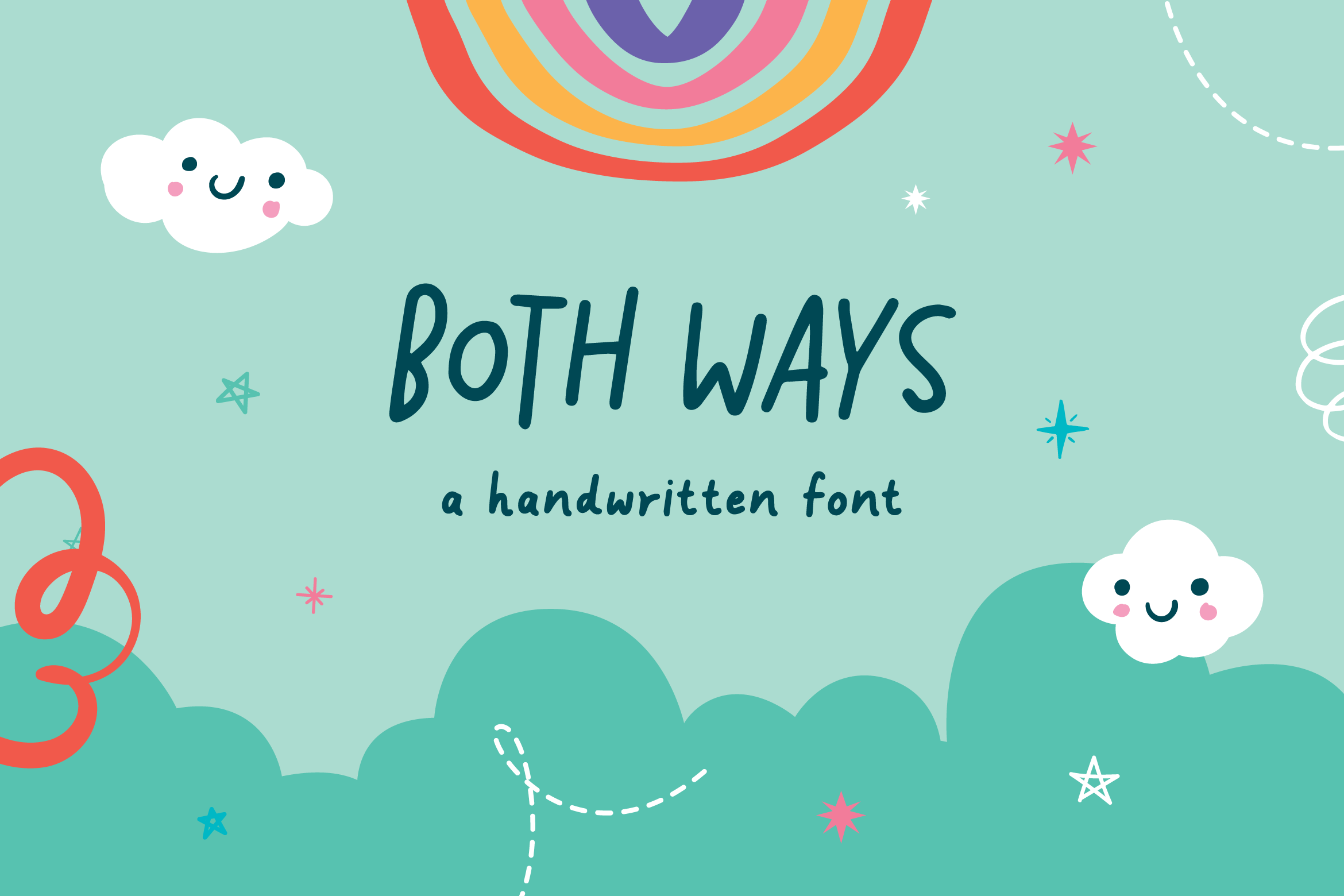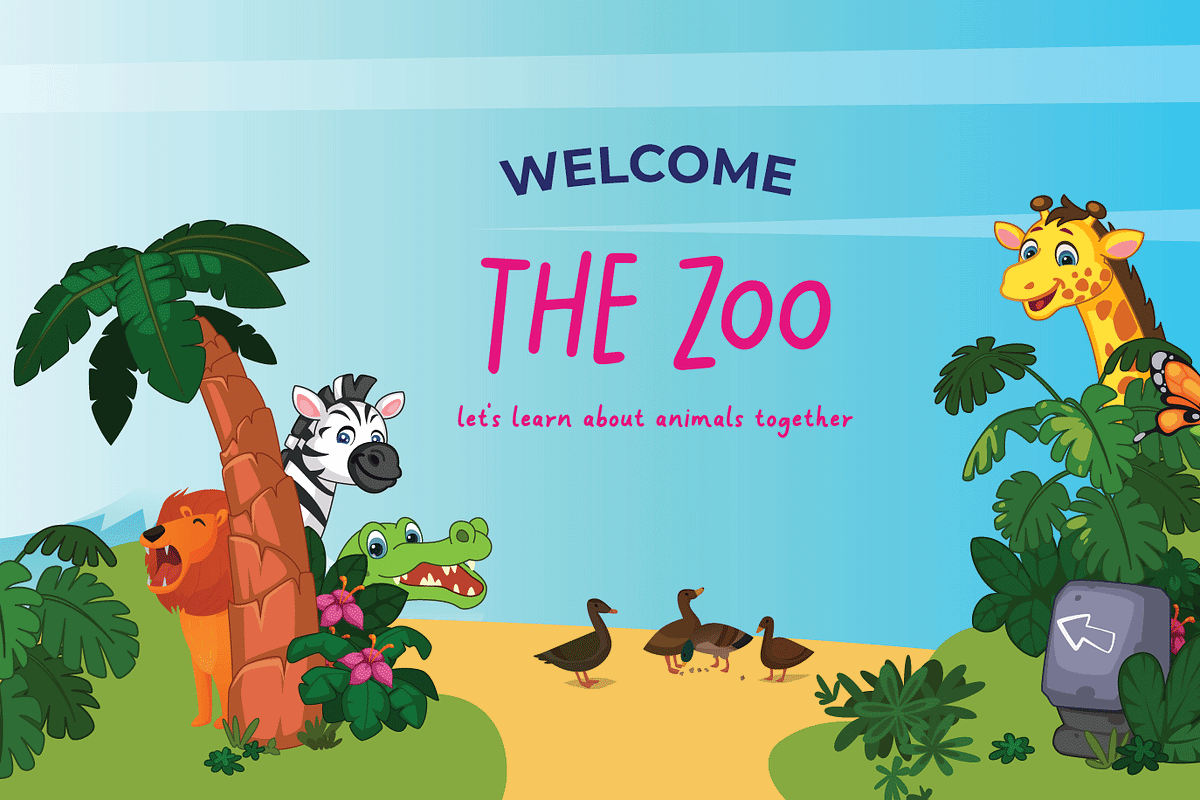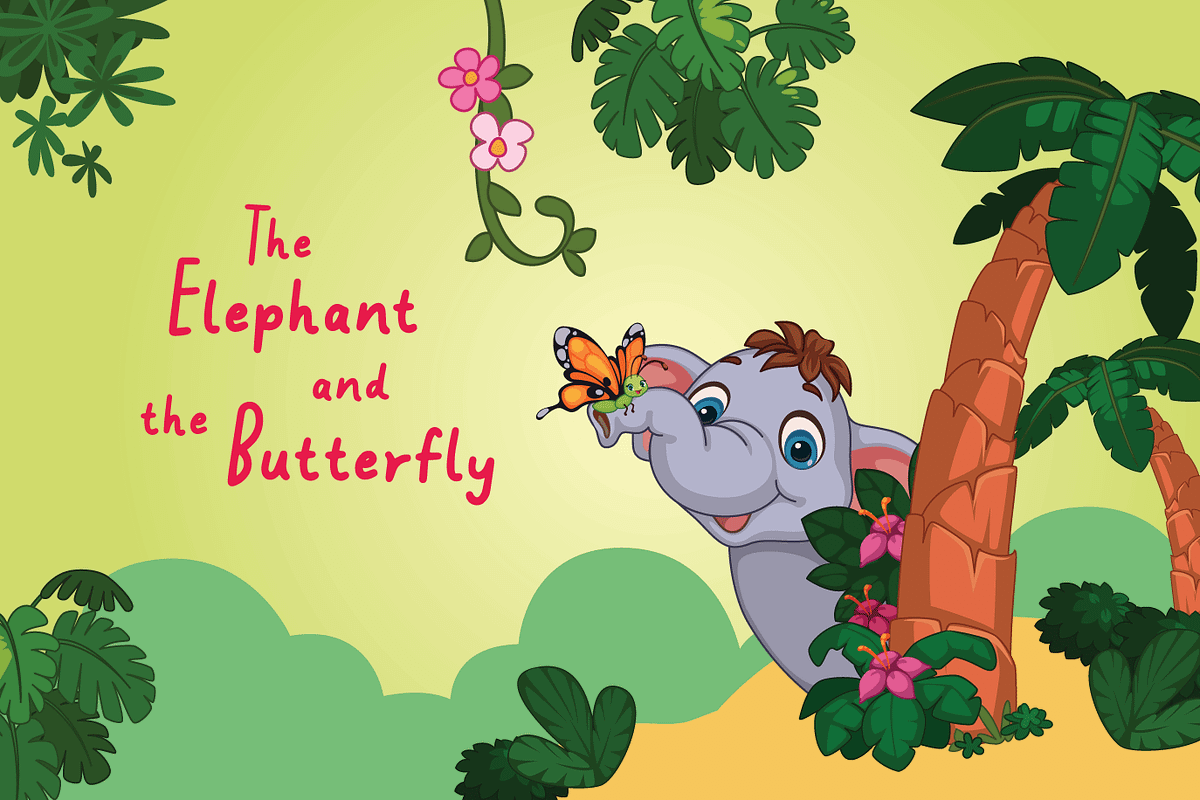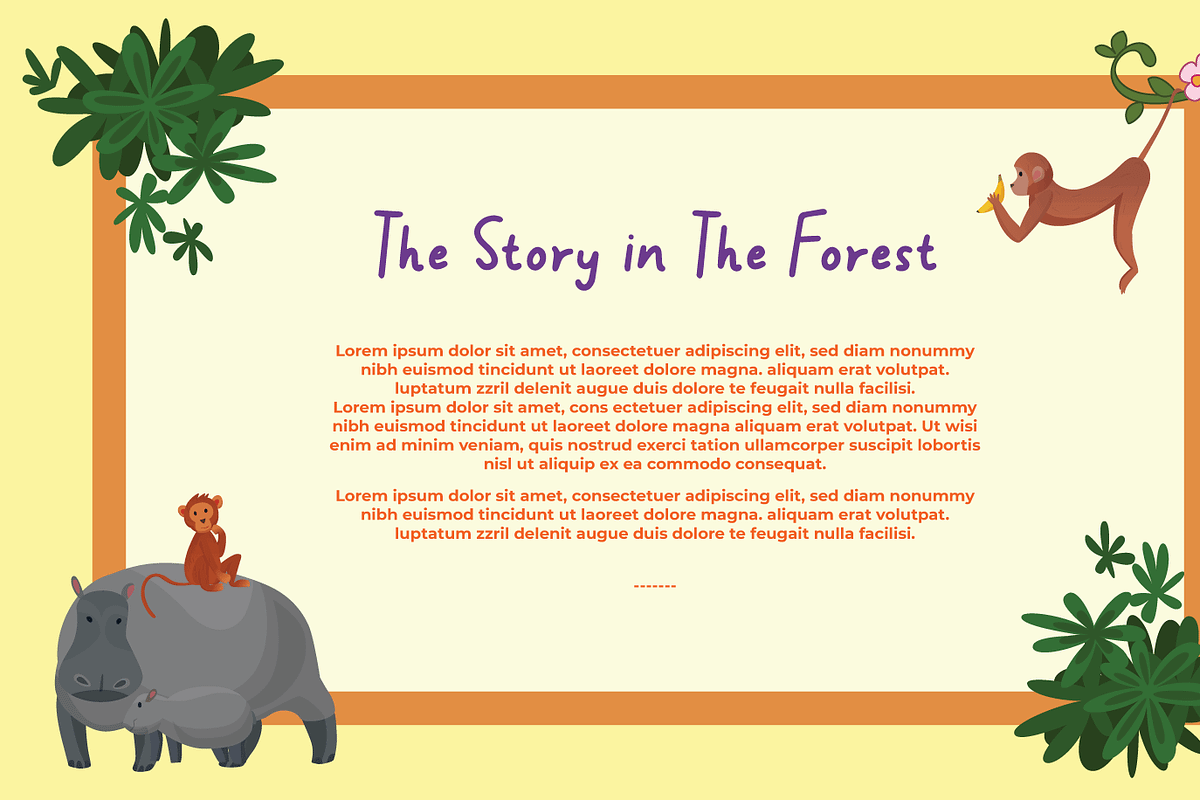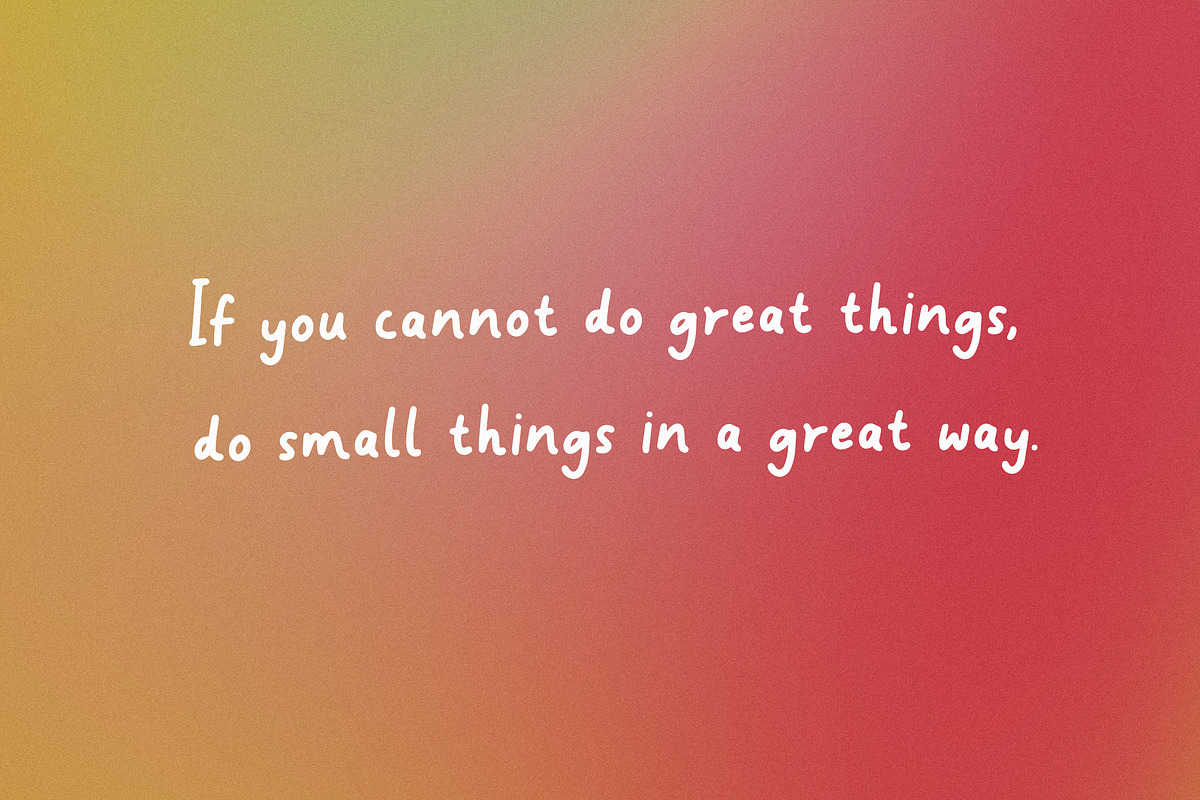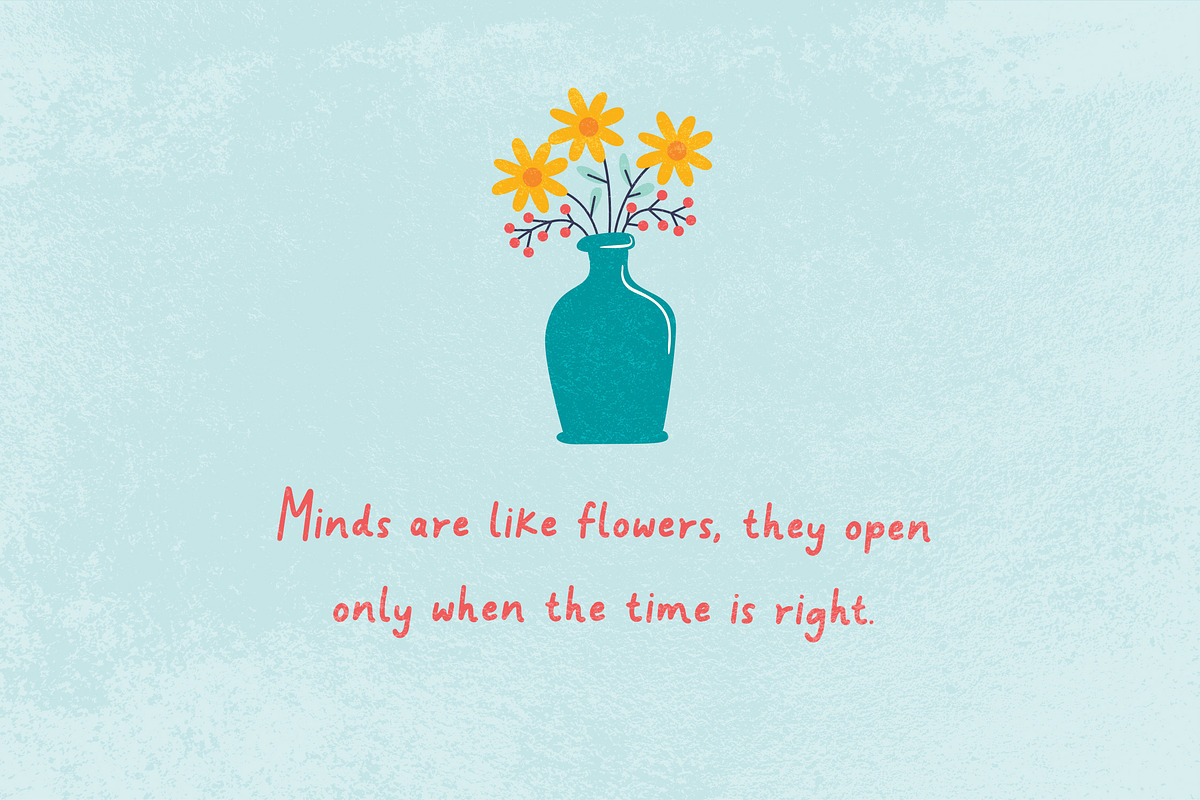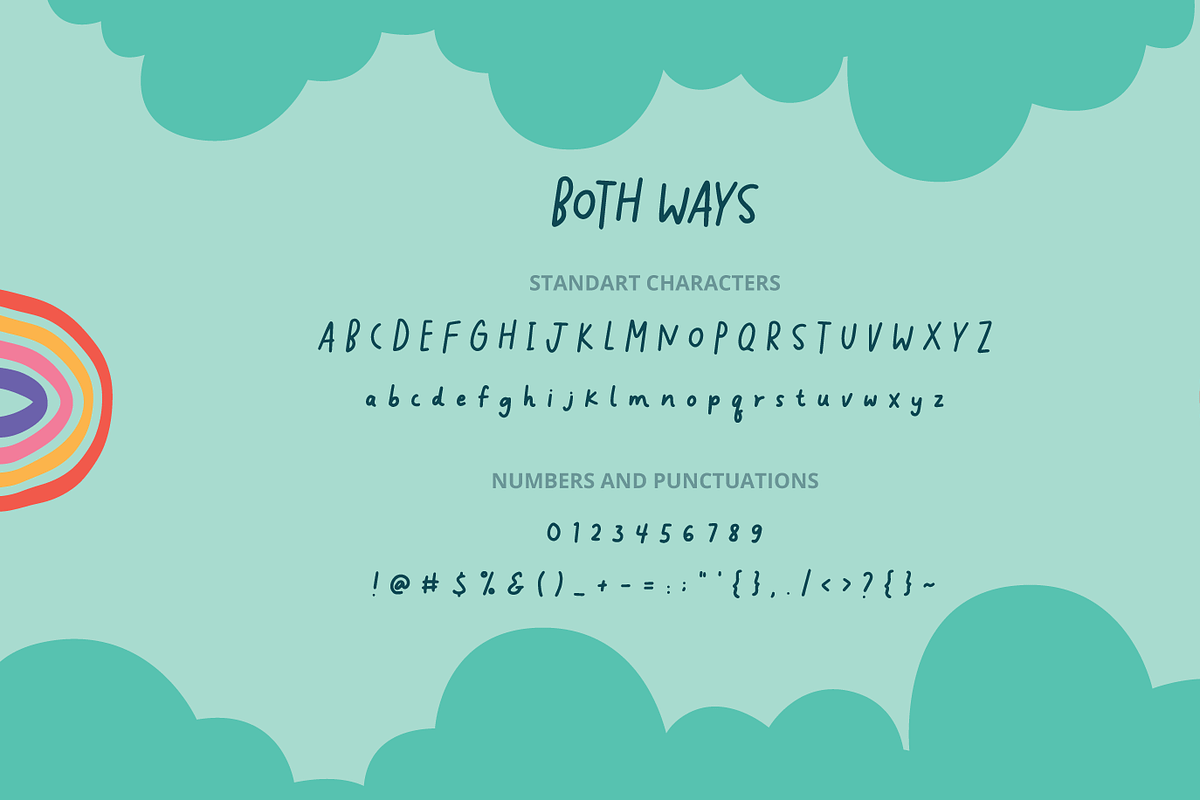
Children's Book Handwritten Font
Both Ways is a handwritten font that comes with regular styles. Work great for children's book and also other design needs like branding, modern advertising design, logos, poster quote, book/cover Title, editorial design, website/blog, card, custom mug, pillow, t-shirts, and any hand-lettered needs.
Both Ways (.ttf + .otf + webfont) comes with upper and lowercase Standard Characters, Punctuation, and Numerals.